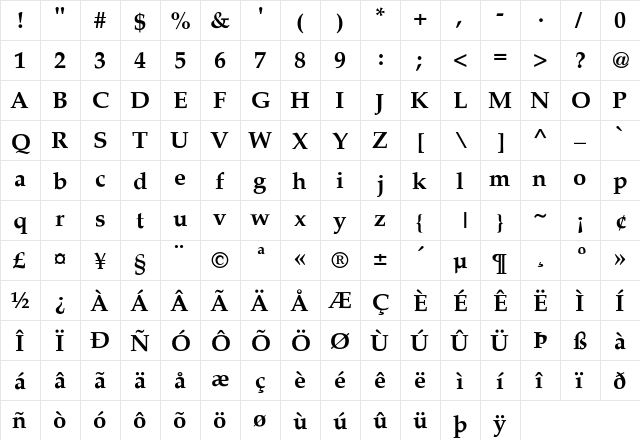
Palazzo-Bold Regular
Design Context for Palazzo-Bold Typeface
Palazzo-Bold takes a measured approach to typography — its balanced proportions and neutral character make it a reliable workhorse for both digital and print work. Its bold stroke weight gives it real presence on the page.